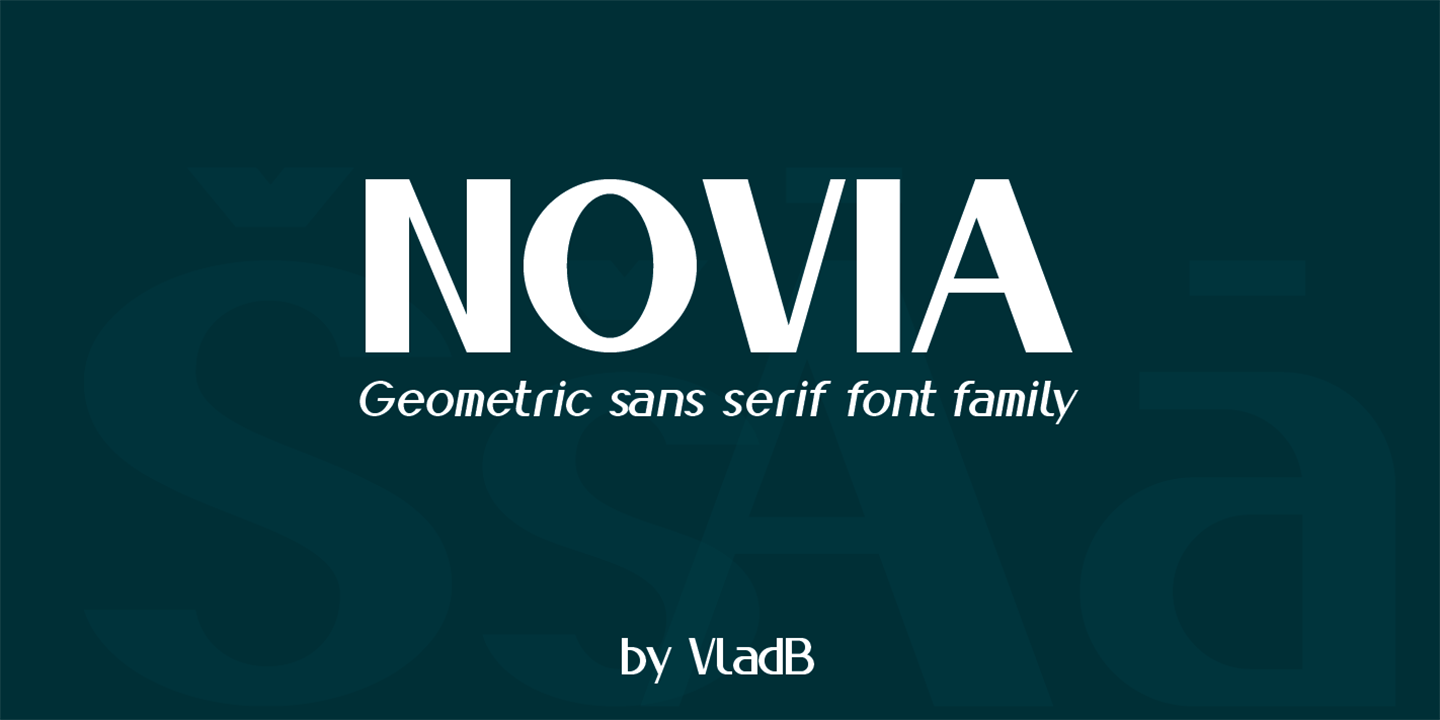
Novia Font is perfect for bridal boutique branding, elegant wedding invitations, romantic event planning, luxury bridal fashion, sophisticated engagement announcements, wedding photography studios, romantic restaurant signage, and dreamy celebration materials.
Novia Font is exciting because it captures the pure romance and ethereal beauty of bridal elegance through its graceful character design that embodies the dreamy sophistication of wedding day magic and the timeless charm of romantic celebrations. Its bridal styling and romantic appeal make it the perfect choice for brands that want to communicate love, elegance, and the transformative power of romantic milestones.
Novia Font family includes multiple romantic variations: Novia Light, Novia Regular, Novia Medium, Novia Bold, Novia Script, and Novia Ornamental, along with romantic decorative elements and wedding symbols, providing designers with comprehensive tools for creating authentic bridal and romantic-themed brand experiences.
When exploring bridal typography solutions, Novia Font Free Download stands out as the premier choice for designers working on wedding and romantic projects that require genuine bridal sophistication and romantic appeal. This enchanting typeface embodies the essence of bridal beauty while offering the versatility needed for modern wedding industry marketing and romantic service communications. The font's elegant character and bridal resonance create immediate connections with audiences who dream of perfect weddings and romantic celebrations.
Wedding professionals consistently rely on Novia Font for projects requiring authentic bridal sophistication and powerful romantic appeal. Its expertly crafted letterforms feature wedding-inspired influences that work exceptionally well in both large-scale bridal venue displays and intimate wedding invitation applications. The font's ability to convey romance and bridal elegance while maintaining strong brand recognition makes it invaluable for comprehensive identity systems in the wedding services, bridal fashion, and romantic celebration sectors.
Whether you're developing bridal boutique identities, creating wedding service marketing materials, or designing romantic event promotions, Novia Font delivers the authentic bridal character and romantic appeal that resonates with audiences who cherish wedding dreams and romantic celebrations. Its bridal significance and elegant design ensure your projects capture the magical beauty of wedding day romance while maintaining contemporary professional standards that attract modern brides and romantic celebration enthusiasts.